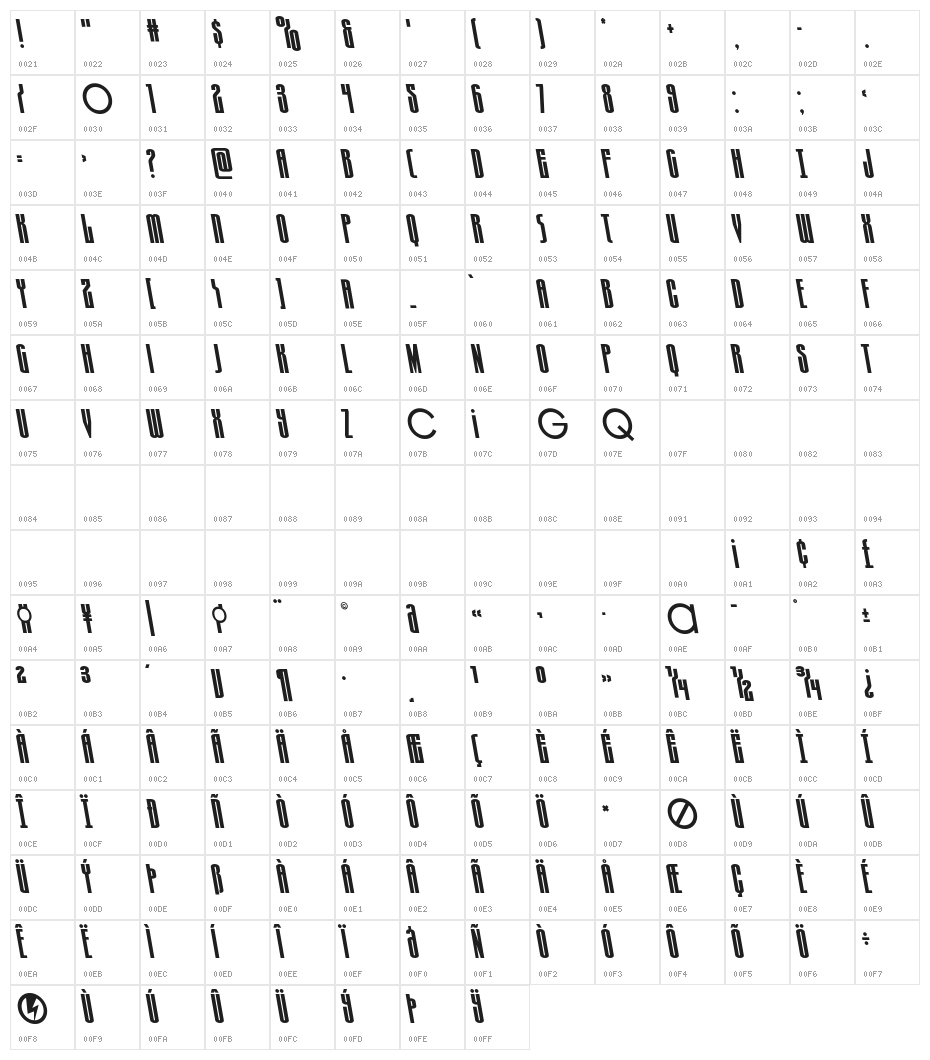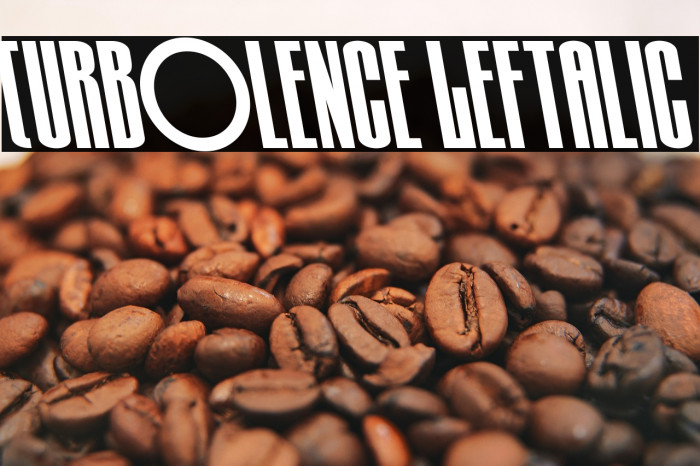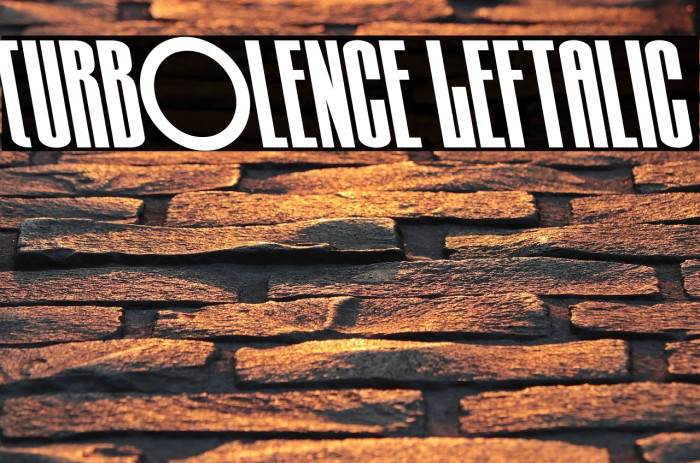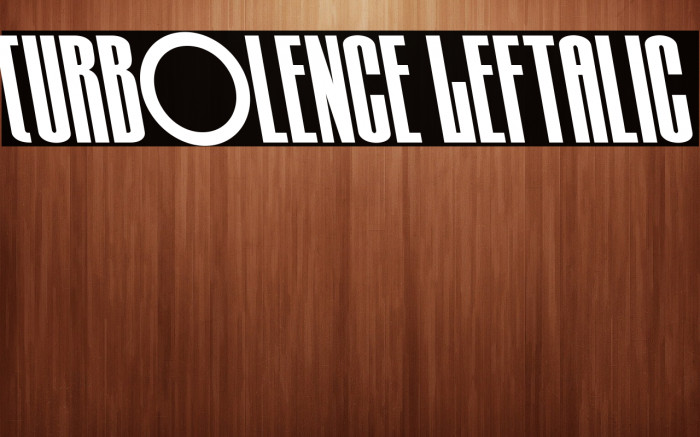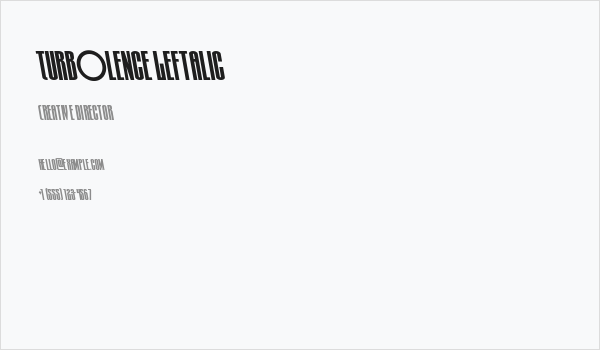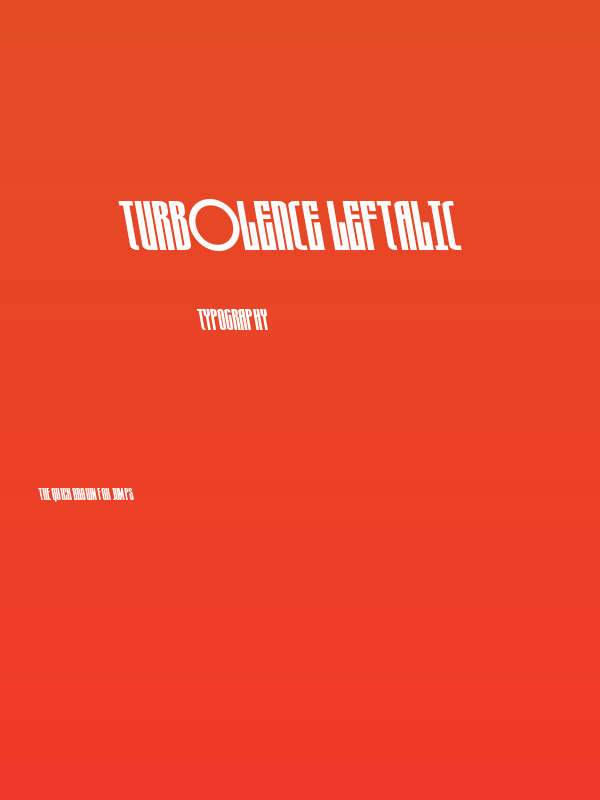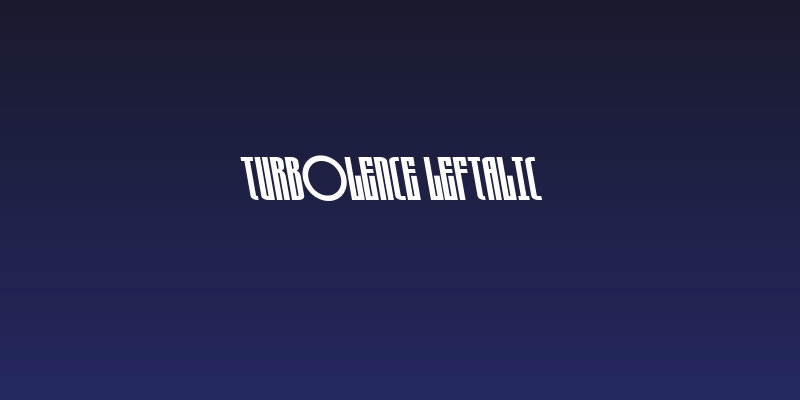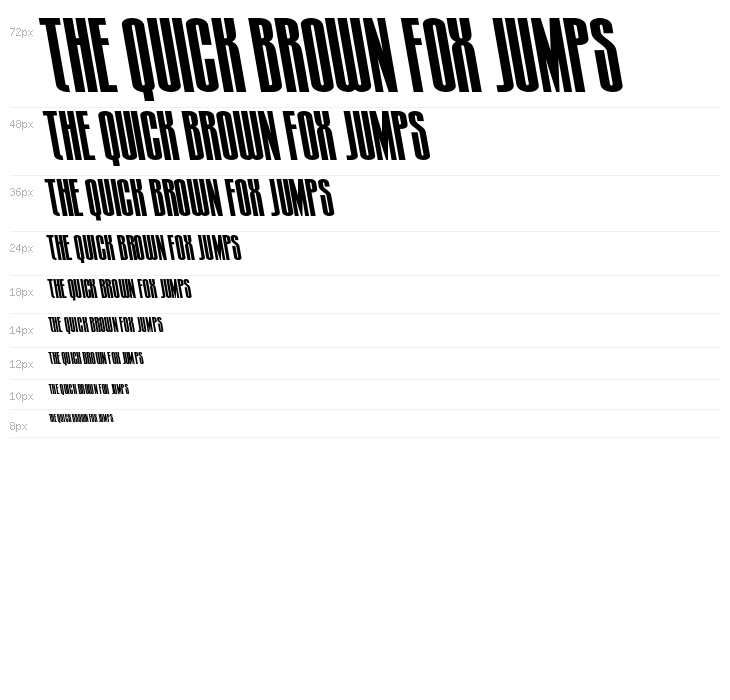
Turb0lence Leftalic Font
Turb0lence Leftalic Description
This font features a bold and dynamic style with a distinct leftward slant, giving it a sense of motion and energy. The characters are tall and narrow, with a condensed width that emphasizes verticality. The strokes are consistent in thickness, providing a uniform appearance across all characters. The font includes both uppercase and lowercase letters, numerals, and a selection of special characters. Its design is modern and impactful, making it suitable for attention-grabbing headlines and titles.
| Proposed Projects | Ideal for sports branding, dynamic posters, and modern advertising campaigns. |